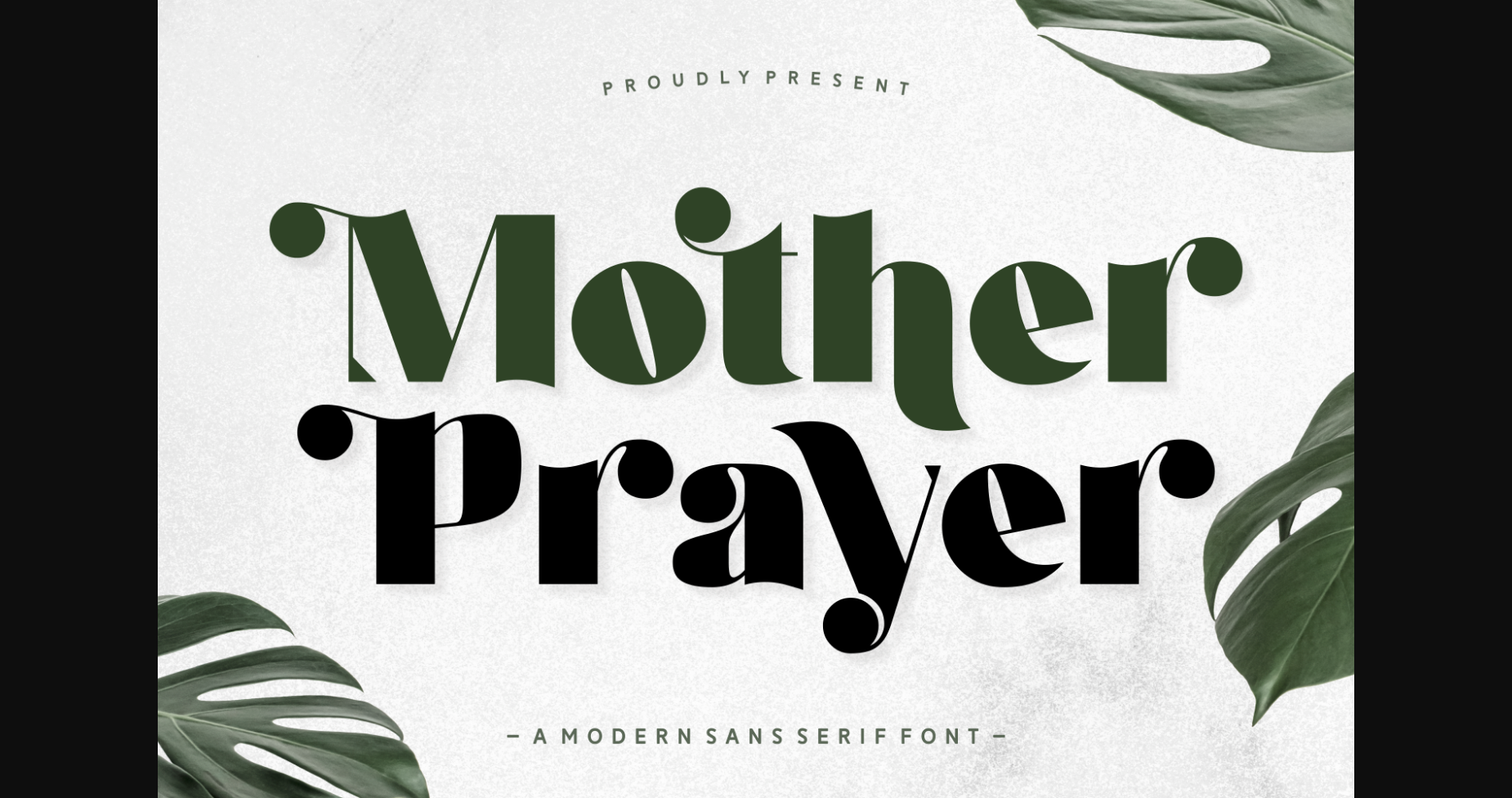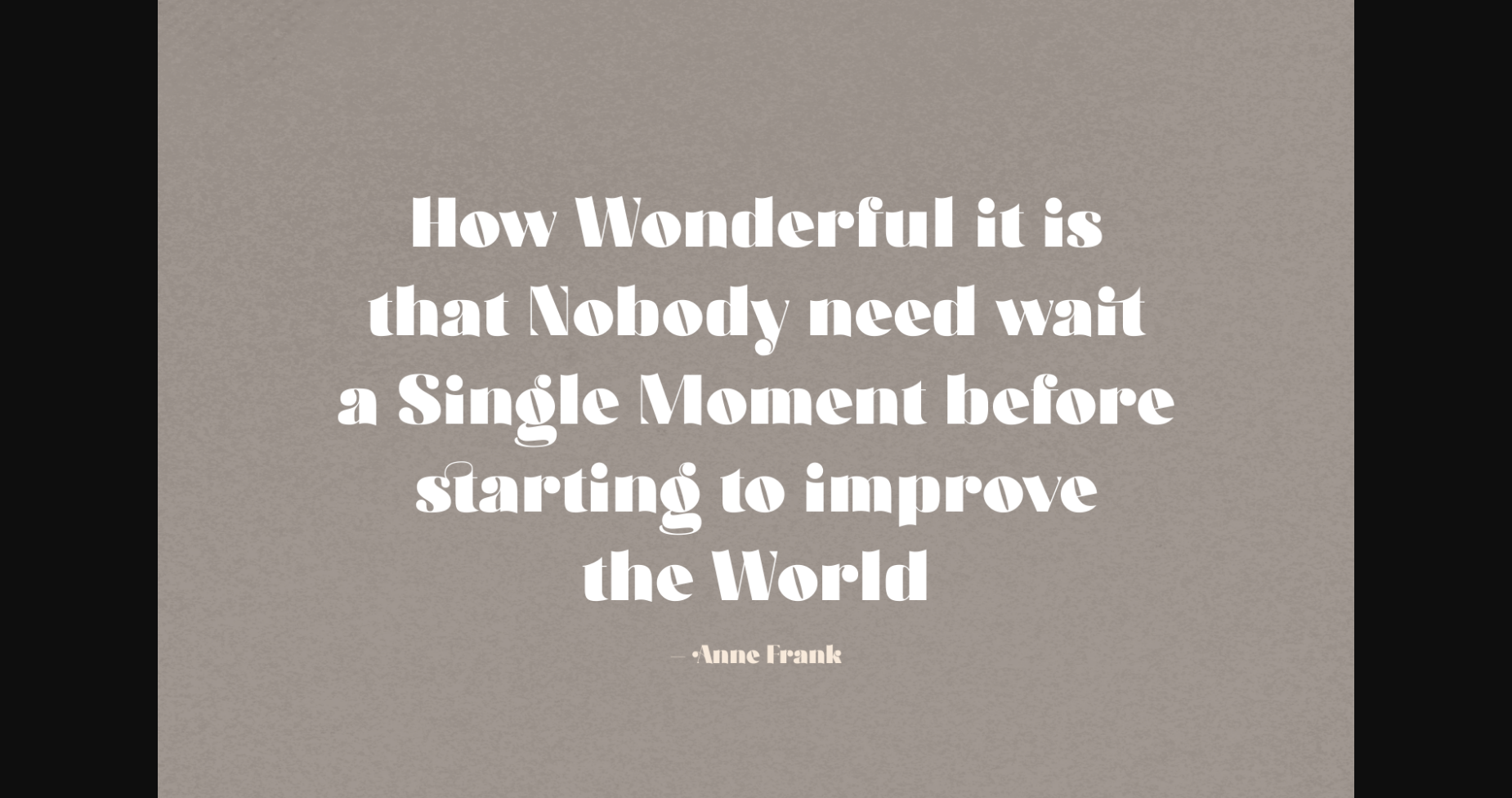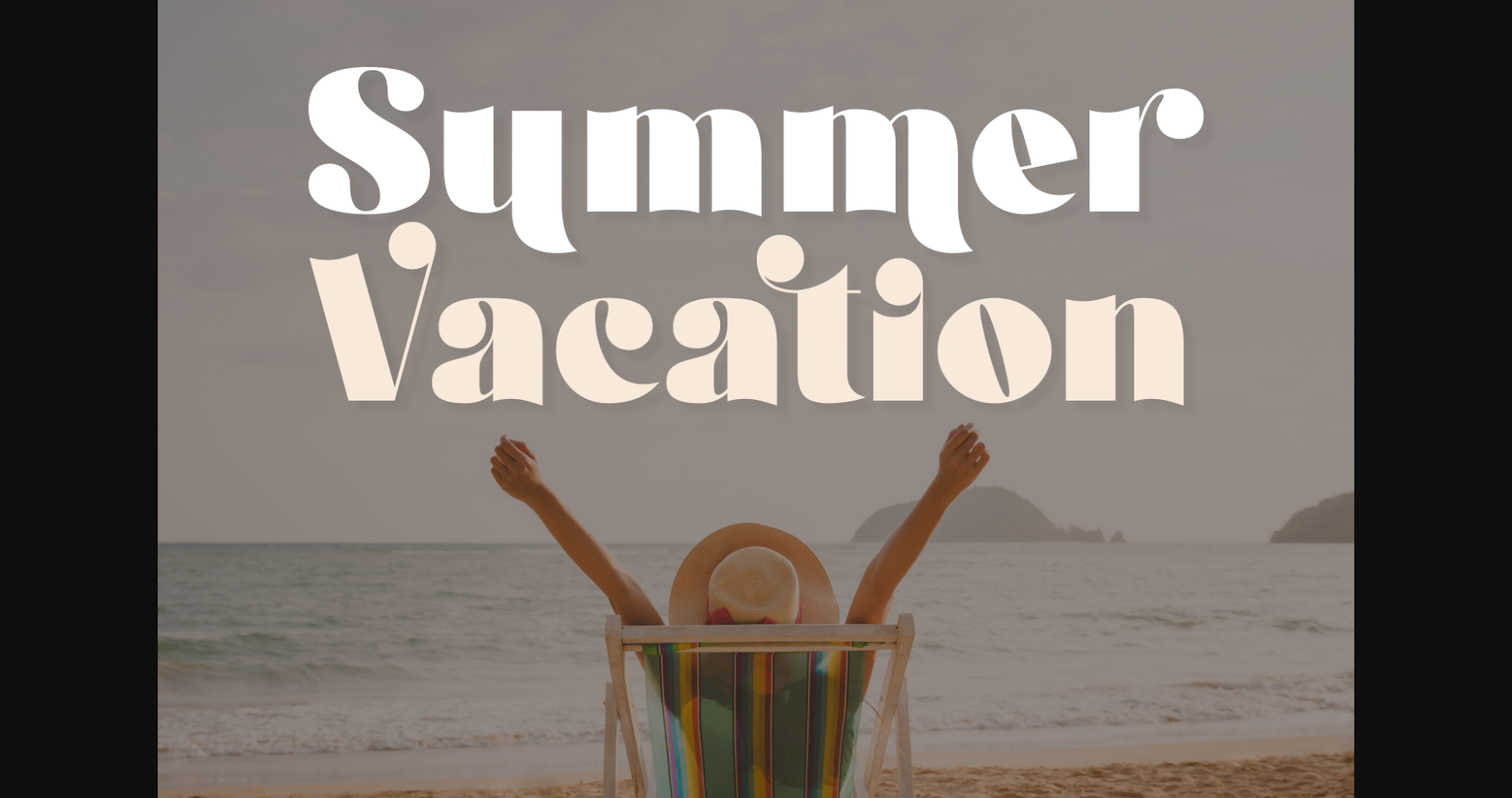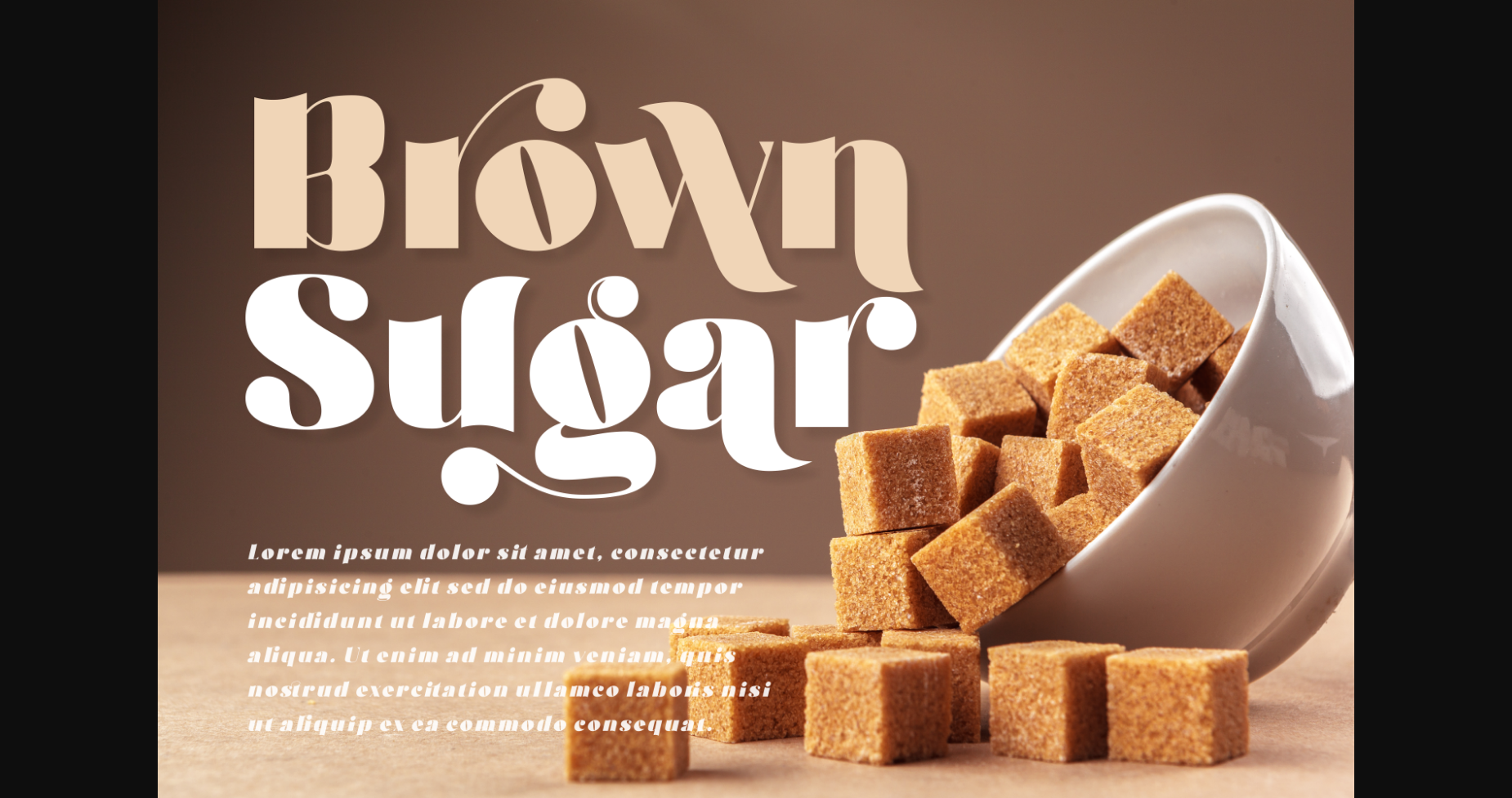
About Mother Prayer Font
Mother Prayer is a modern and sleek sans-serif typeface. Its clean lines and contemporary design make it a popular choice for businesses and creatives looking to convey a sense of professionalism and sophistication. Its legibility and versatility make it perfect for branding, websites, and print materials.